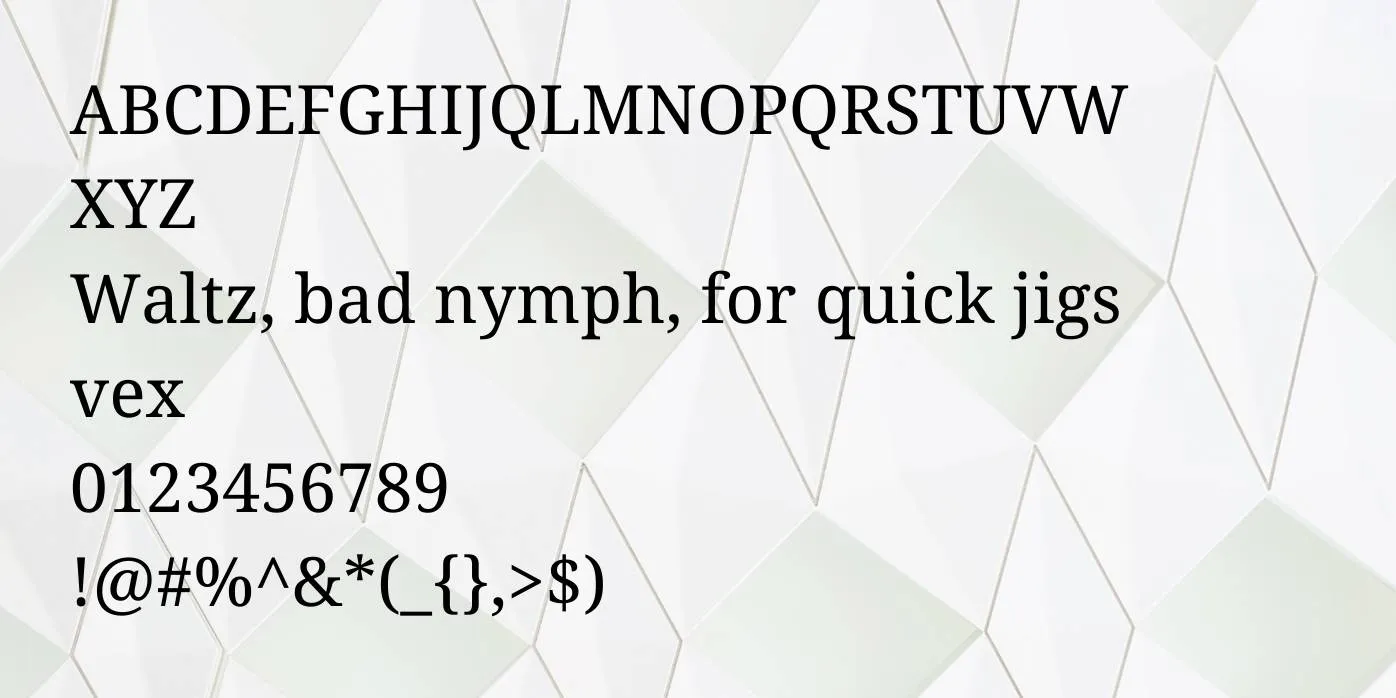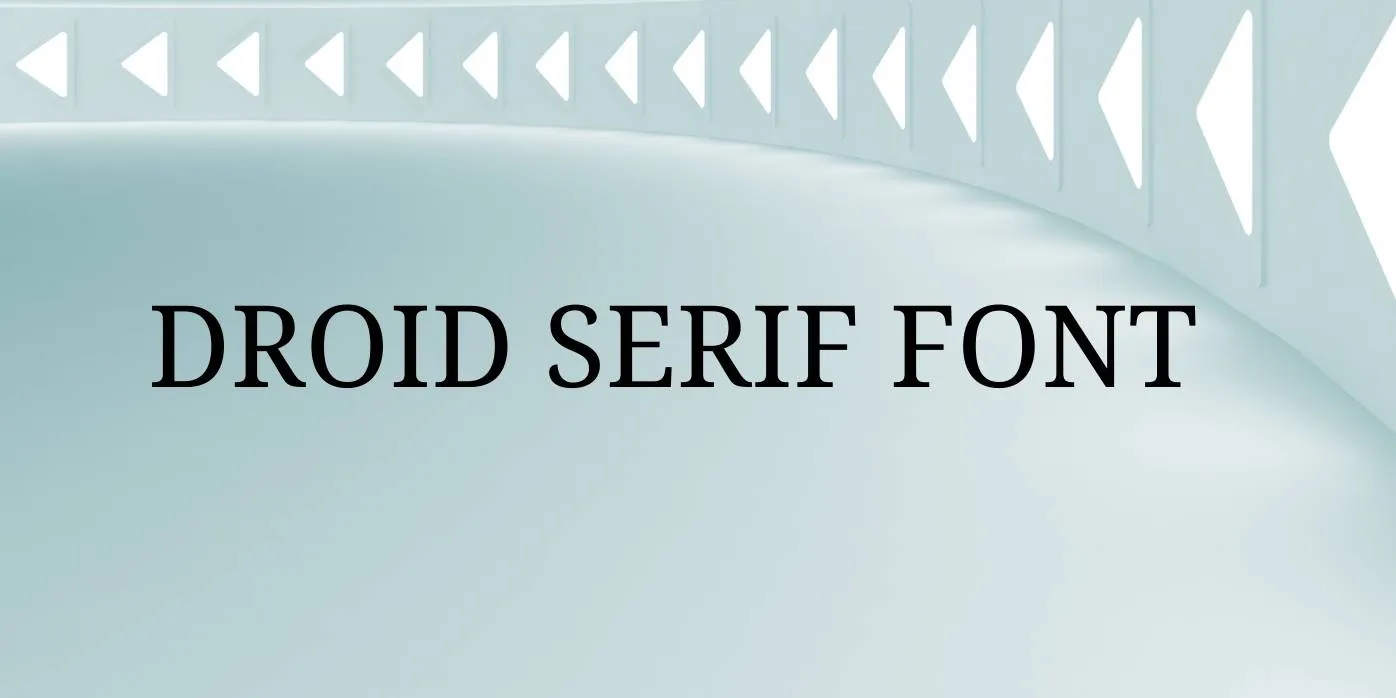
Droid Serif Font
Droid Serif is one of the most famous and Adobe original typeface it belongs to a Serif font family. This pro-level typeface is from Ascending Corporation with “Open-Source Font foundry”. It has TTF features and free for commercial use. This beautiful serif font has Uppercase and Lowercase Letters, Numbers and Numerals, and some useful symbols also.
It is most similar to Arvo Serif font and may provide the best result with this pairing of this professional typeface. Its characters are more professional and specially suited to printing projects. It basically released in 2007 and was specially made for a device named Open Handset Alliance platform Android. You may also generate this typeface by an online generator tool even without downloading.
Usage The font family can also be embedded in mobile app UI and many other apps as well. As we know this typeface is specially made for a handset therefore it is great for Digital projects like App UI, Illustrations, Different Designs, and so on. The typeface family is also manageable for making different designs in CSS (Cascading style sheet) and many other designing software also. It is also an advantageous typeface for Printing projects like you can use it in your documents as heading or titling and body text also.
You can get it from our website easily. What font goes with Droid Serif? It is great serif typeface with beautiful characters that are high legible and visible texture. Raleway font is the most similar typeface of this font.